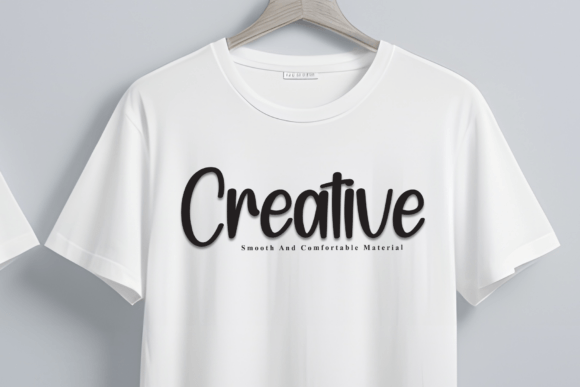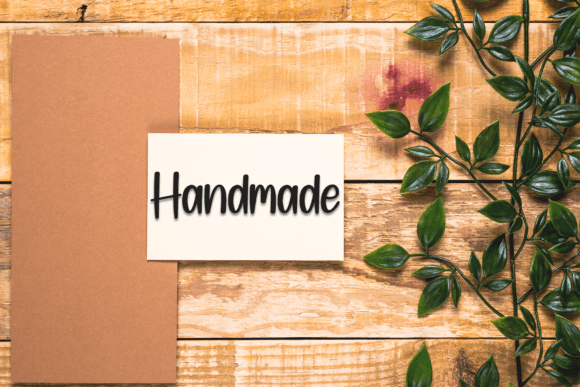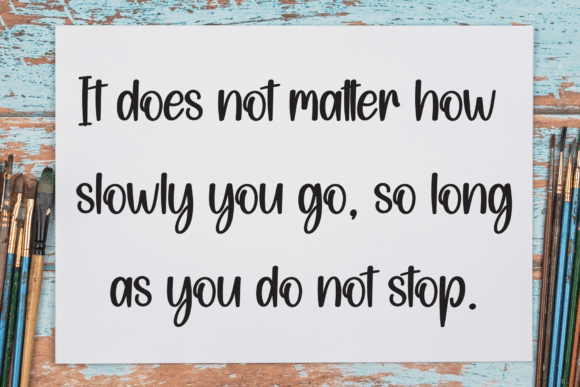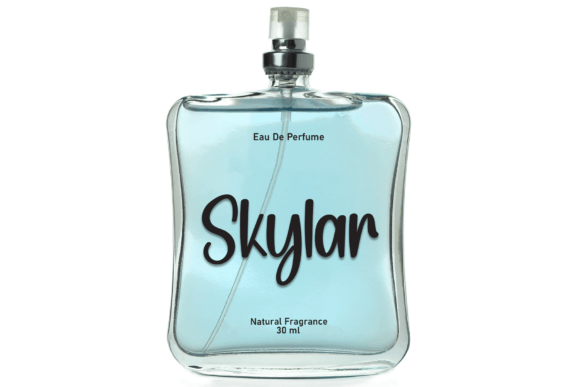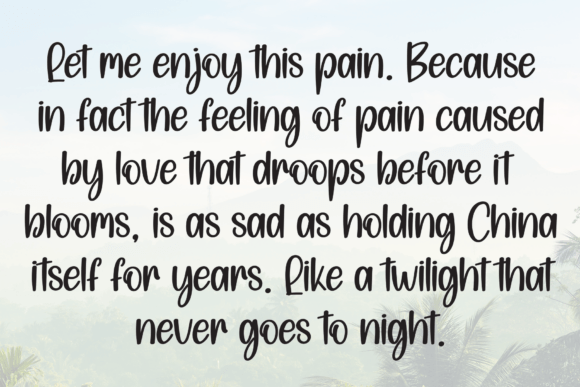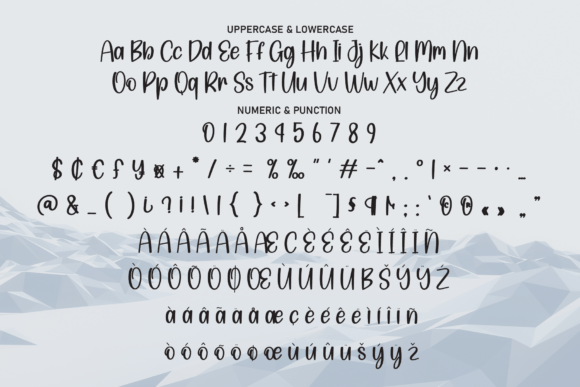
Introduction to Simple Glacial Font
Have you ever stumbled upon the perfect font for a creative project, and it completely elevates your design to the next level? That’s exactly what happened to me when I discovered the Simple Glacial Font. I was working on a social media graphic for a friend’s birthday, and I wanted a font that would convey a sense of warmth and friendliness. After browsing through various fonts, I finally found Simple Glacial, and it was love at first sight.
The Simple Glacial Font is a casual handwritten font that exudes a relaxed and approachable feel, making it perfect for personal projects, invitations, and social media graphics. Its charming, hand-drawn aesthetic adds a delightful, whimsical touch to any design, and the best part? It’s available for free download, making it an excellent design resource for designers on a budget.
Key Features of Simple Glacial Font
- High-quality design: This font boasts a crisp, clear design with smooth lines and curves, ideal for various design applications.
- Transparent background: The Simple Glacial Font features a transparent background, allowing for seamless integration with your design.
- Resolution: The Simple Glacial Font is designed at a high resolution of 300 DPI, ensuring it looks great in various print and digital applications.
- Unique characteristics: The Simple Glacial Font’s unique blend of modern and minimalist design elements makes it a standout choice for creative projects.
Honest Review: Simple Glacial Font
I recently came across the Simple Glacial Font, and I’m excited to share my thoughts on this design resource.
- ✨ High quality design that looks great on a variety of creative projects
- ✨ Easy to use and versatile font that can be used for both digital and print projects
- ✨ Transparent background makes it easy to use with any background image or color
- ⚠️ Limited customization options, which may not be ideal for designers who want more control over their fonts
- ⚠️ Not as extensive a character set as some other fonts I’ve used, which can make it difficult to use for more complex projects
Overall, I’m impressed with the Simple Glacial Font. While it may not be perfect, its high quality design and versatility make it a great addition to any designer’s toolkit. If you’re looking for a free, high-quality font for your next creative project, I’d definitely recommend giving it a try.
The Simple Glacial Font is ideal for use in a variety of creative projects, including logos, brochures, social media graphics, typography-based artwork, presentations, and documents. Its high-quality design and transparent background make it a versatile design resource for any project.